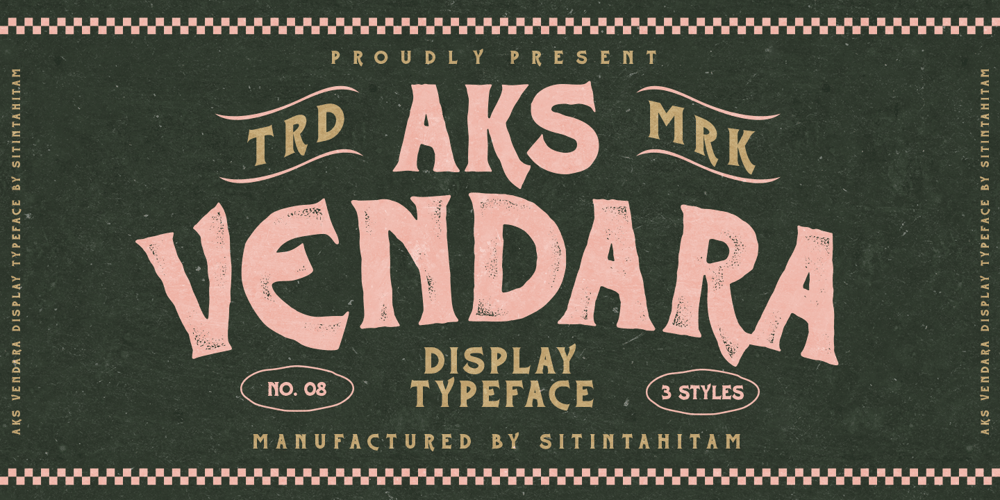
Aks Vendara
Aks Vendara font
Aks Vendara Font Family was designed by Hasto Nugroho and published by Sitintahitam. Aks Vendara contains 3 styles and family package options. Aks Vendara is a display typeface with 3 style, regular, stamp, and inked. This typeface inspired by motorcycle and custom culture. Aks Vendara perfect for people looking for vintage with rough feel. Suitable for any graphic designs such as branding materials, t-shirt, print, logo, poster, packaging .etc.We hope you enjoy the font, please feel free to comment if you have any thoughts or feedback. Thanks for purchasing and have fun!Cheers 🍻